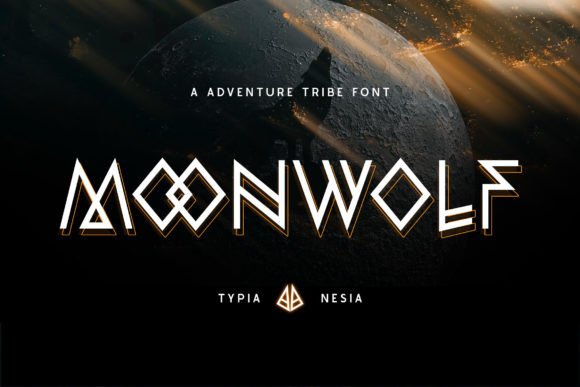
In a world where your designs yearns to transcend the boundaries of the commonplace, meet Moonwolf Font - a cosmic typeface that evokes the mystical allure of a technologically advanced space tribe. This font is not just a collection of letters, but a gateway to a captivating and otherworldly aesthetic.
Unleash the Power of Futurism:
Moonwolf Font is a captivating display font that captures the imagination with its futuristic and bold style. Its sharp edges and sleek lines create a striking visual impact that exudes power and strength. Whether designing logos, posters, or digital graphics, Moonwolf Font will add a touch of cosmic intrigue to your projects.
Embark on a Journey of Discovery:
Inspired by the natural patterns found in the cosmos and tribal markings of ancient civilizations, Moonwolf Font intertwines the past with the future. The intricate details and seamless flow of the letters create a sense of unity and harmony, inviting your audience on a journey of exploration and discovery.
Craft Designs That Radiate Confidence:
When you choose Moonwolf Font, you choose a font that commands attention and exudes confidence. Its unique design and futuristic aesthetic are sure to leave a lasting impression on your audience. Elevate your designs to the next level and make a bold statement with Moonwolf Font.
A Font for the Visionary:
Moonwolf Font is perfect for designers seeking a futuristic, tribal, or sci-fi vibe for their projects. Its versatility extends to a wide range of applications, making it an ideal choice for logos, posters, website design, and social media graphics. With Moonwolf Font, your creativity knows no bounds.
Your Ticket to a Cosmic Adventure:
Don't let your designs be ordinary. Embrace the extraordinary with Moonwolf Font and embark on a cosmic adventure. Let your imagination soar as you craft designs that capture the spirit of the stars and the essence of ancient civilizations. Join the ranks of visionary designers who dare to break boundaries and create designs that leave a lasting impact.